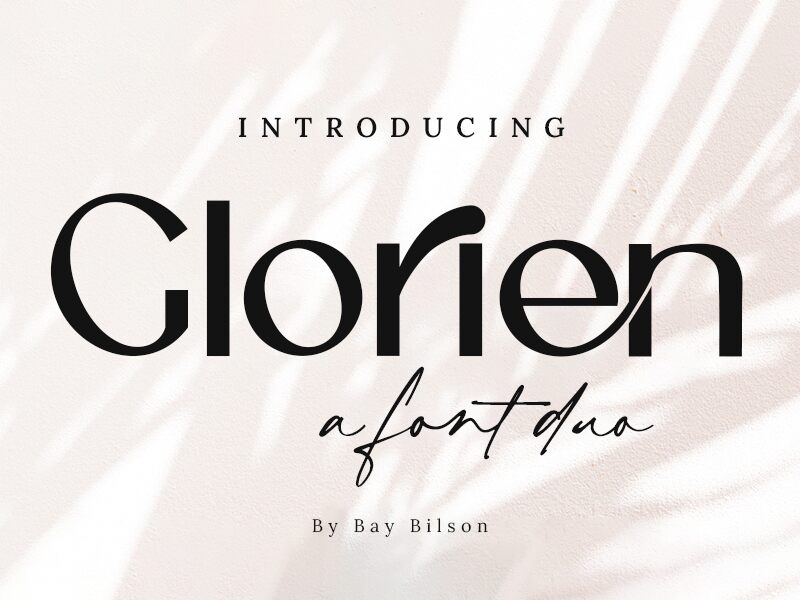
Glorien Sans Serif
Glorien Sans Serif font by Baybilson is elegant, modern, and clean in its simple sophistication and defined character. The free serif font embodies refined subtlety within detailed precision for a novel twist that still allows for traditional uses. Versatile applications arise from this classy style’s universal appeal combined with its ability to embody understated sophistication through design.
Advertising projects, posters, headlines/ titles, web design, mobile applications, sub-titles and text overlays will all reach new bounds because of Glorien sans serif’s high versatility and refined feel in enhancing the viewer experience through engaging visual appeal.